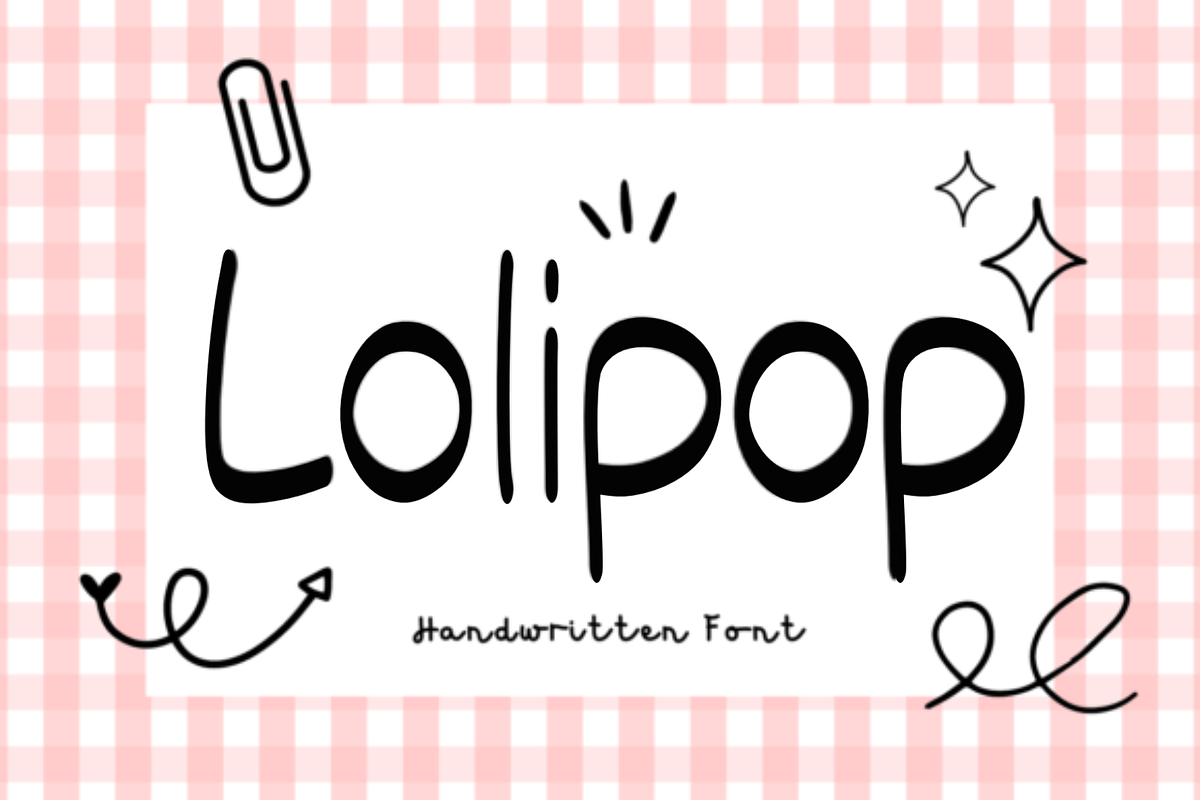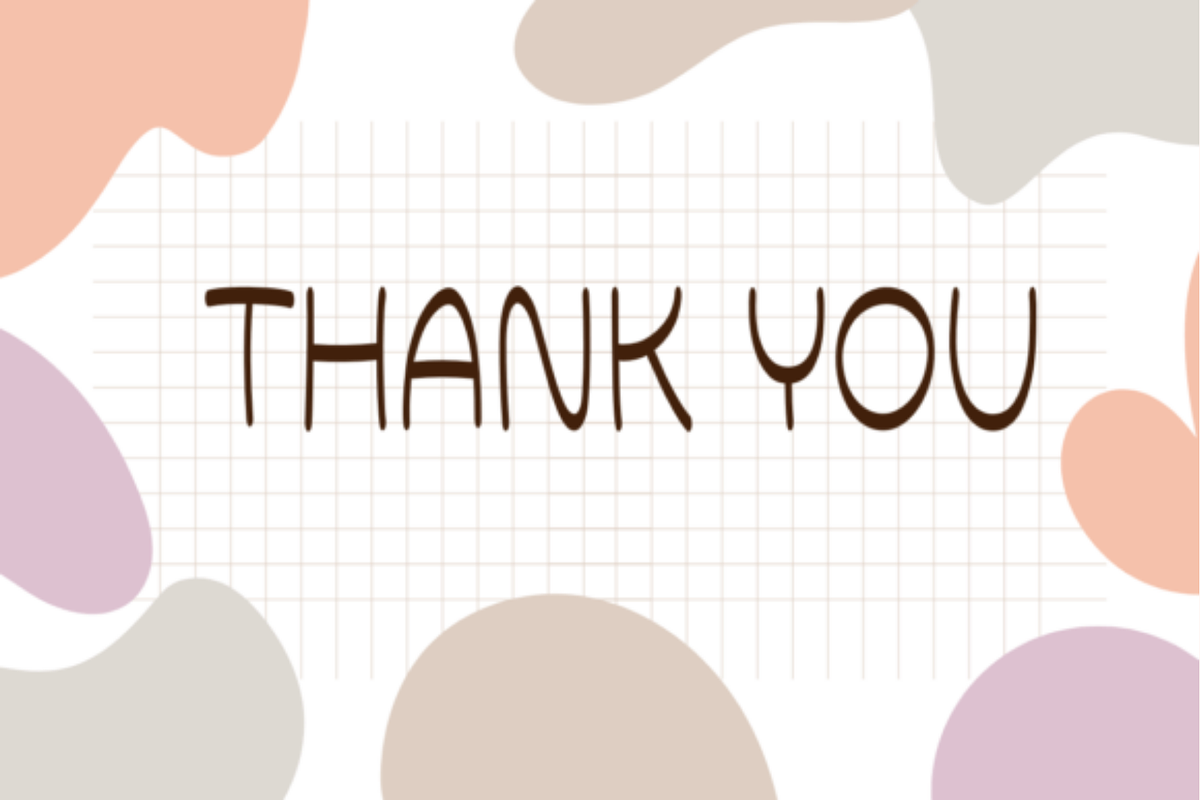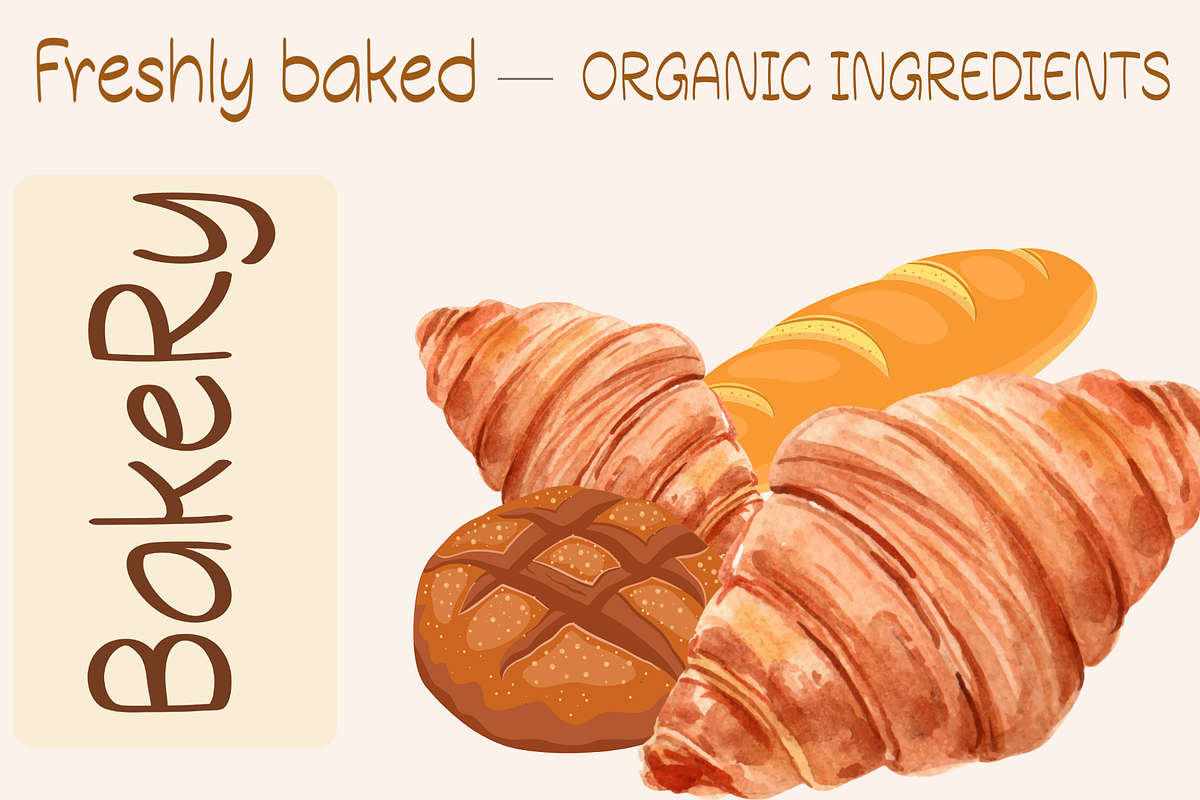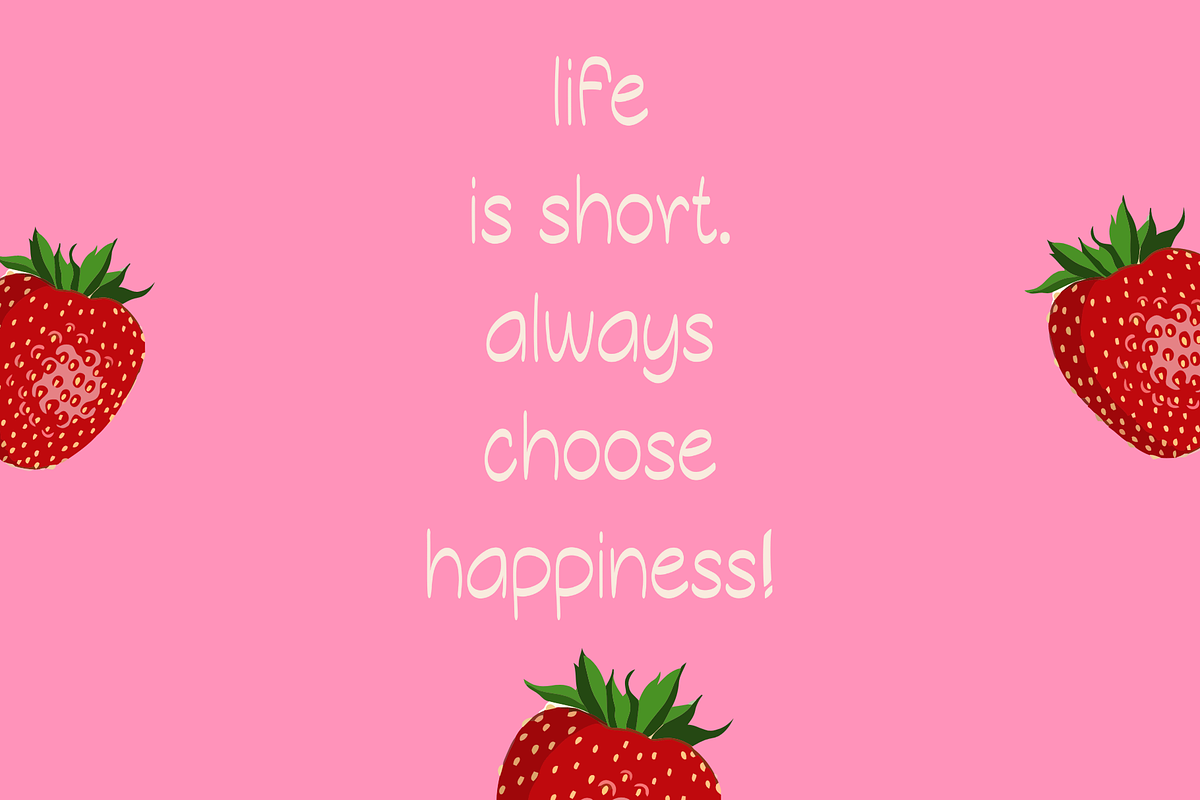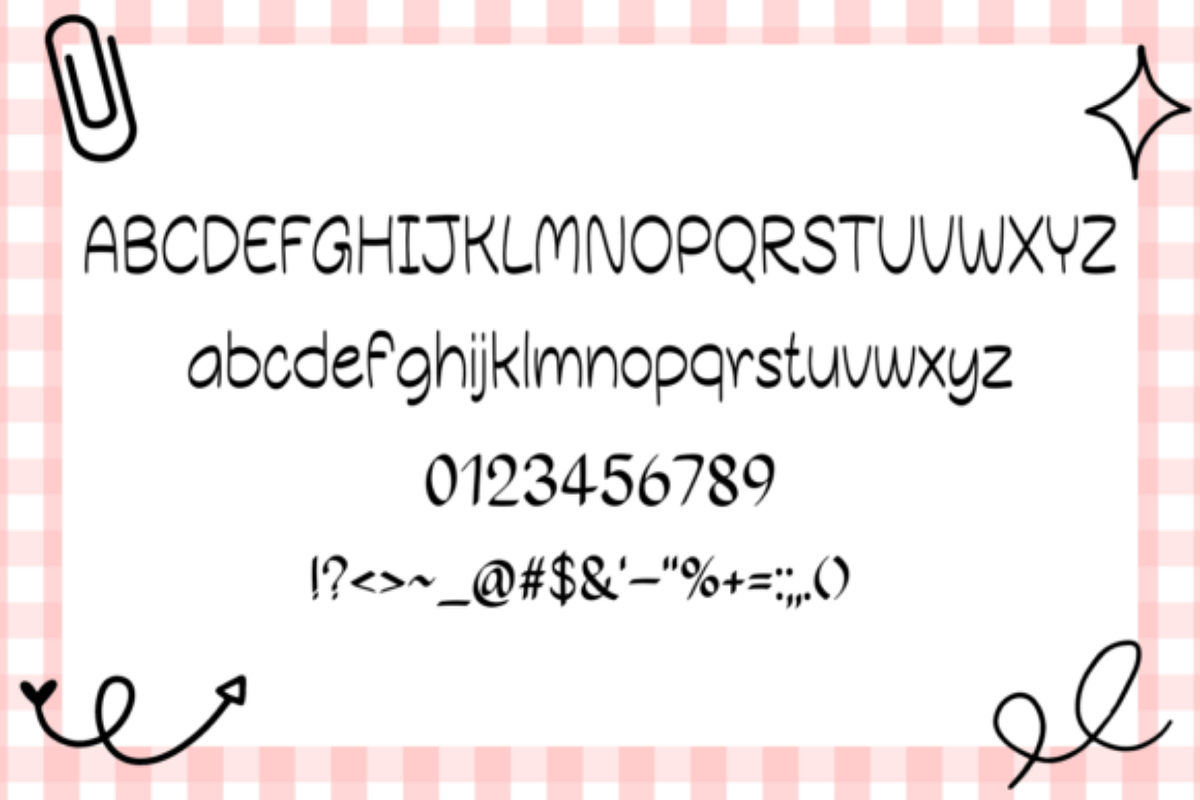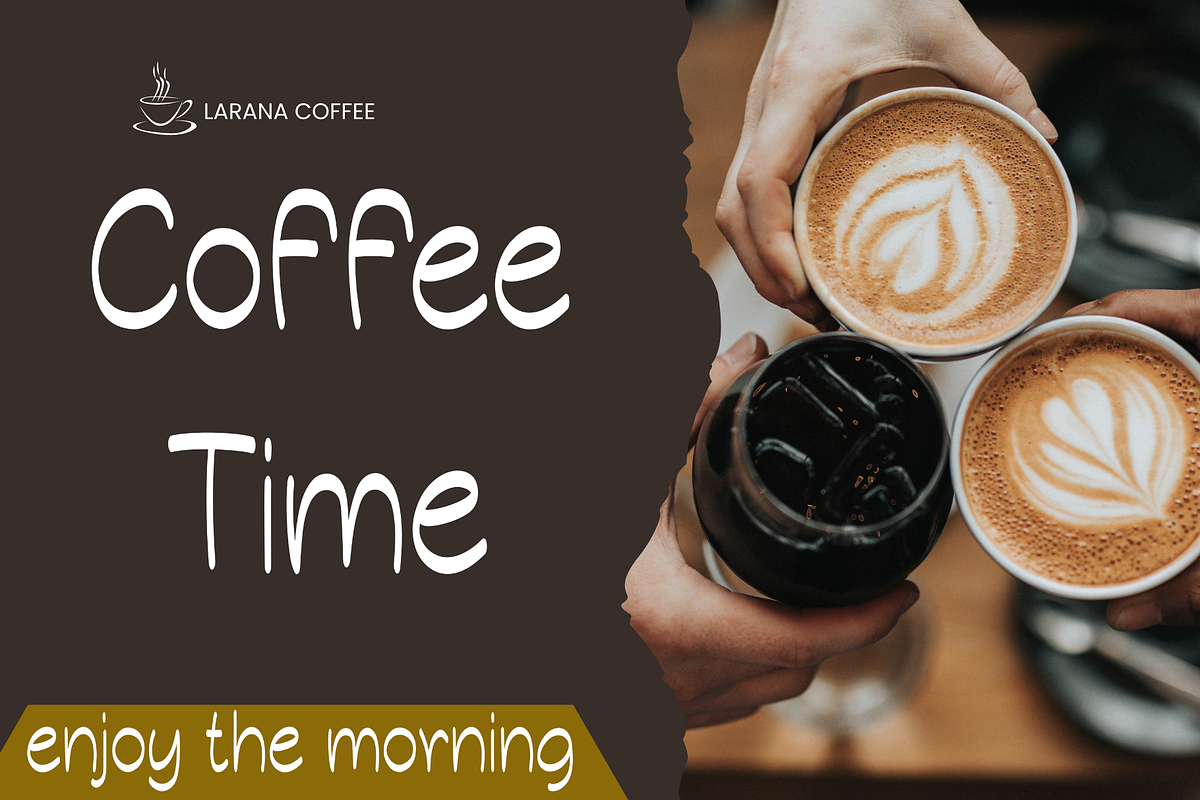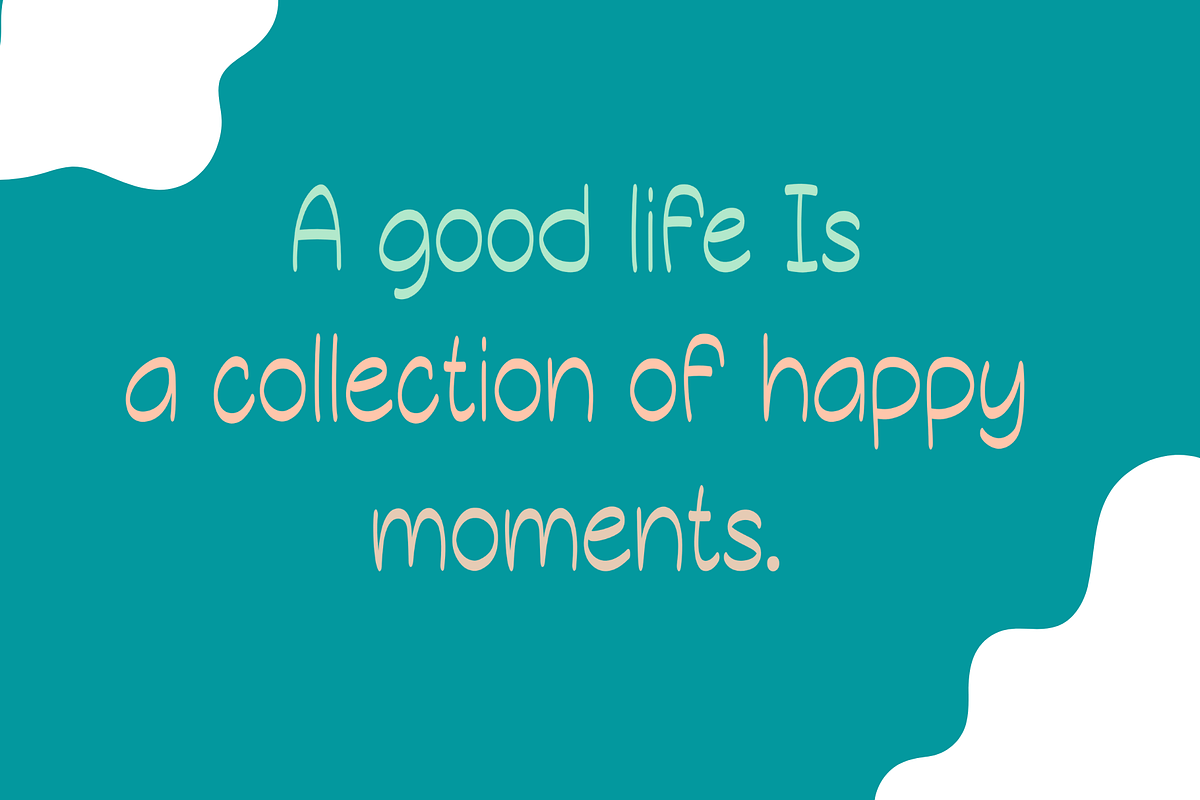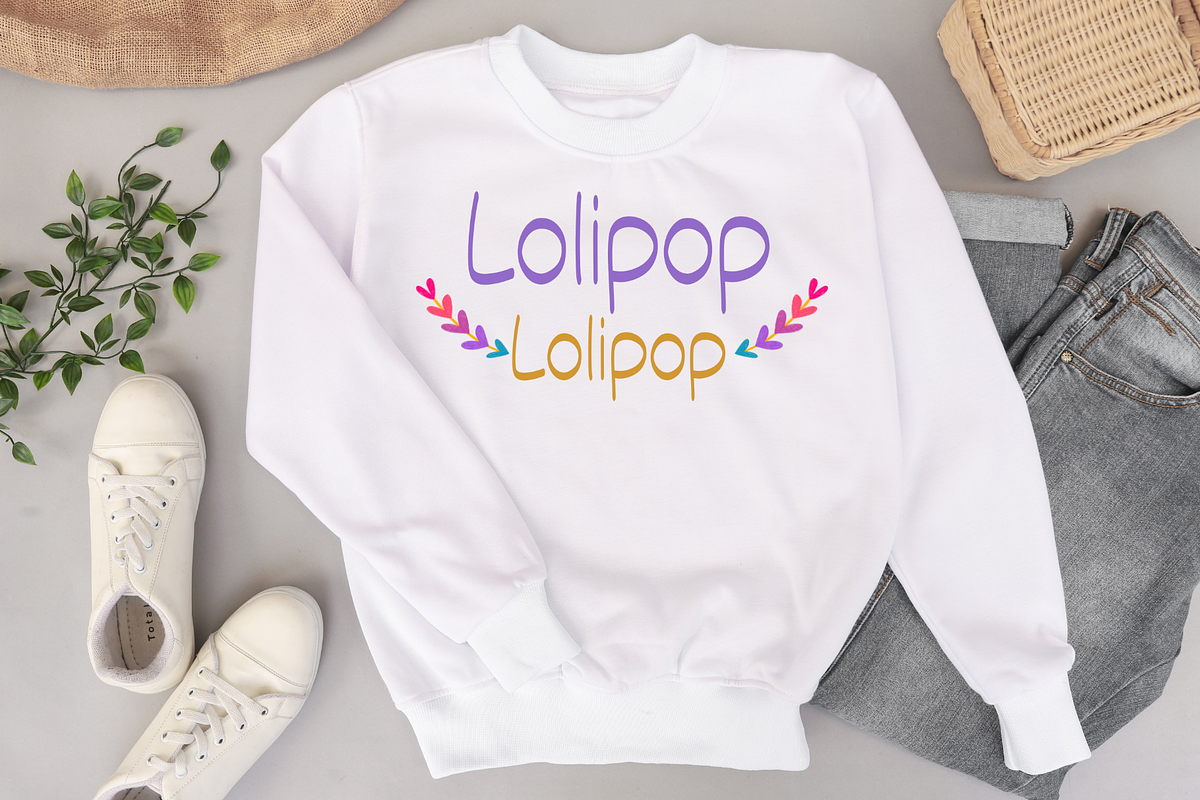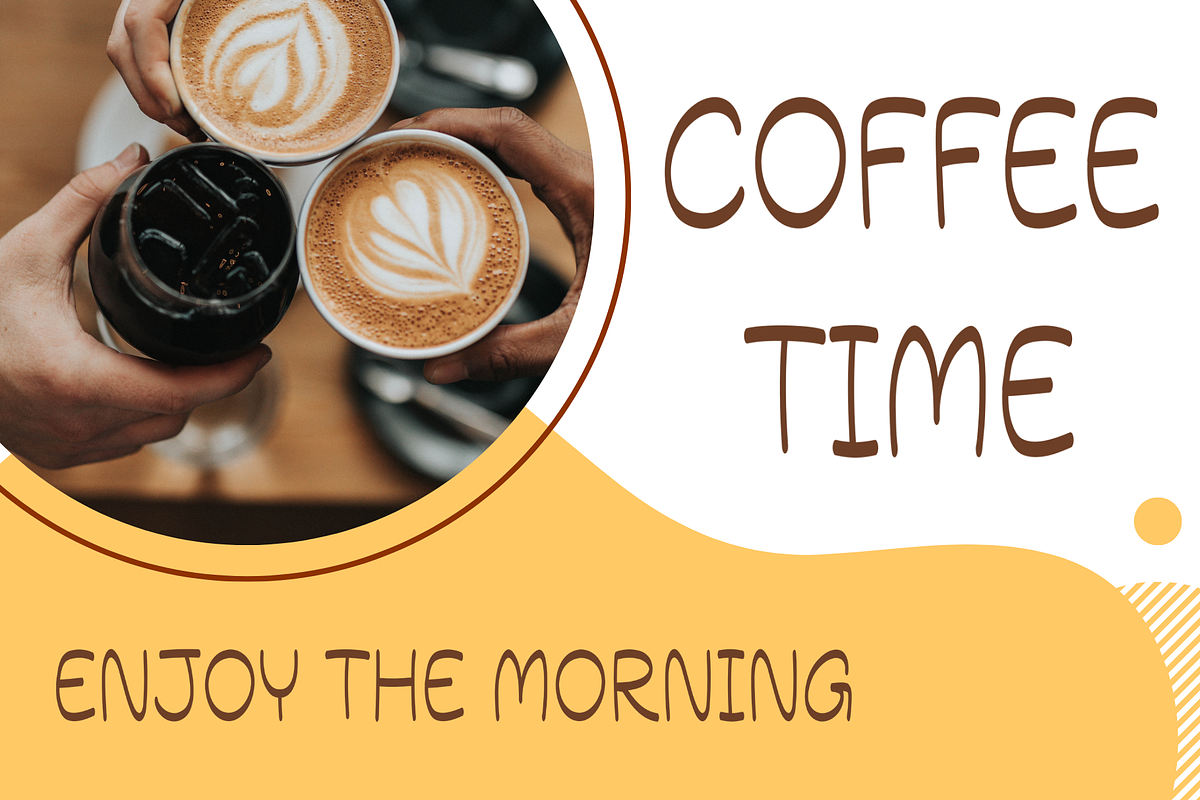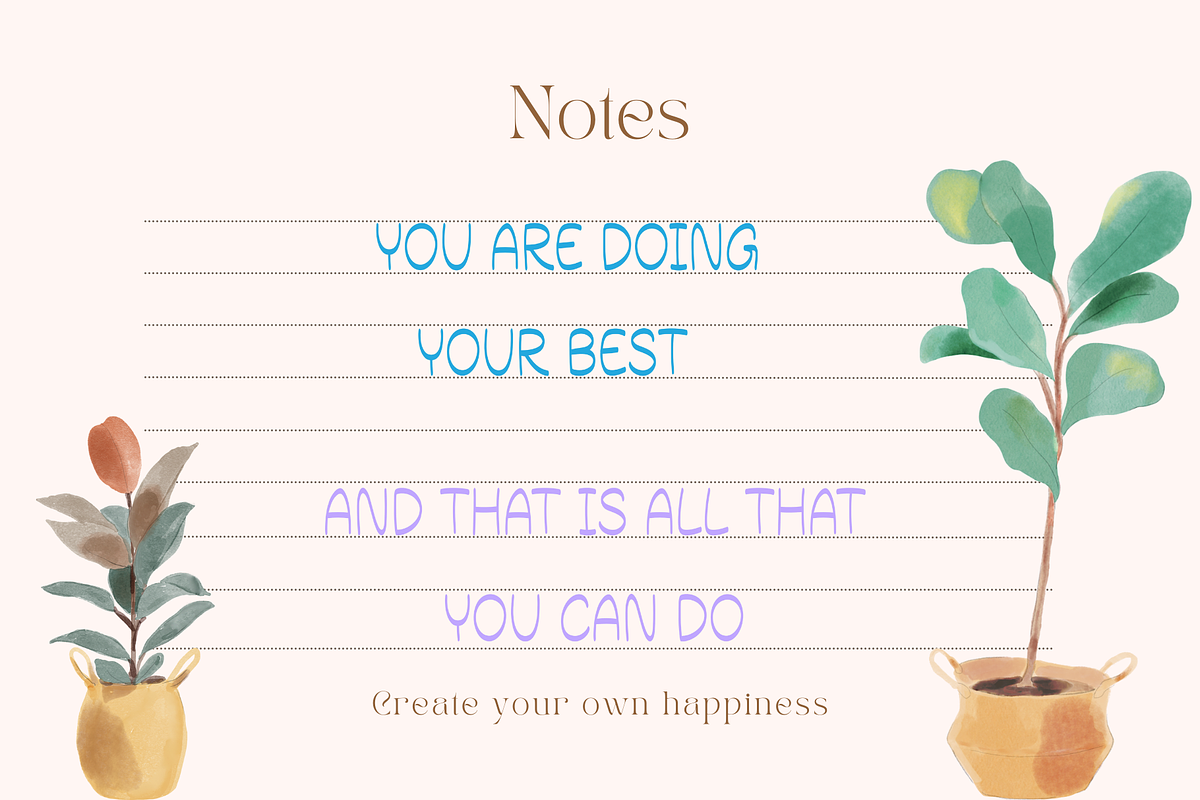
Lolipop Font
Lolipop is a cute and adorable display font suitable for designing T-shirts, tote bags, hats, stickers, wedding invitations, logos, cards, quotes, and more!